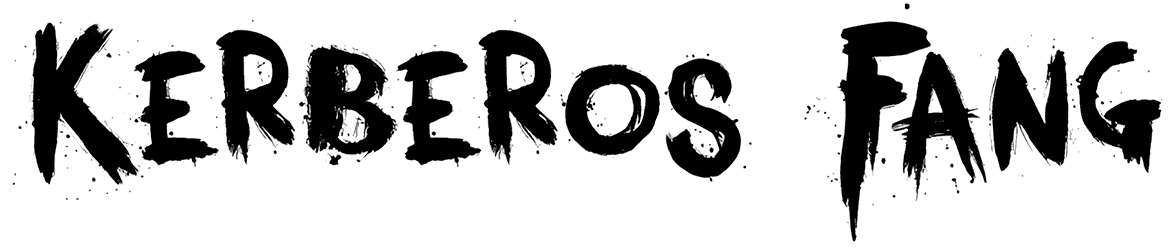
Kerberos Fang Font
Kerberos Fang is a horror font that technically pairs well with scary projects. This font uses the classic elements of spooky fonts, such as blood drops and lines that fade at the end, to create a scary atmosphere.
This is the reason why it can look good in criminal and police situations and attract the reader’s attention. The removal of numbers and small letters from this font has made it suitable only for designing posters, titles, and banner ads.